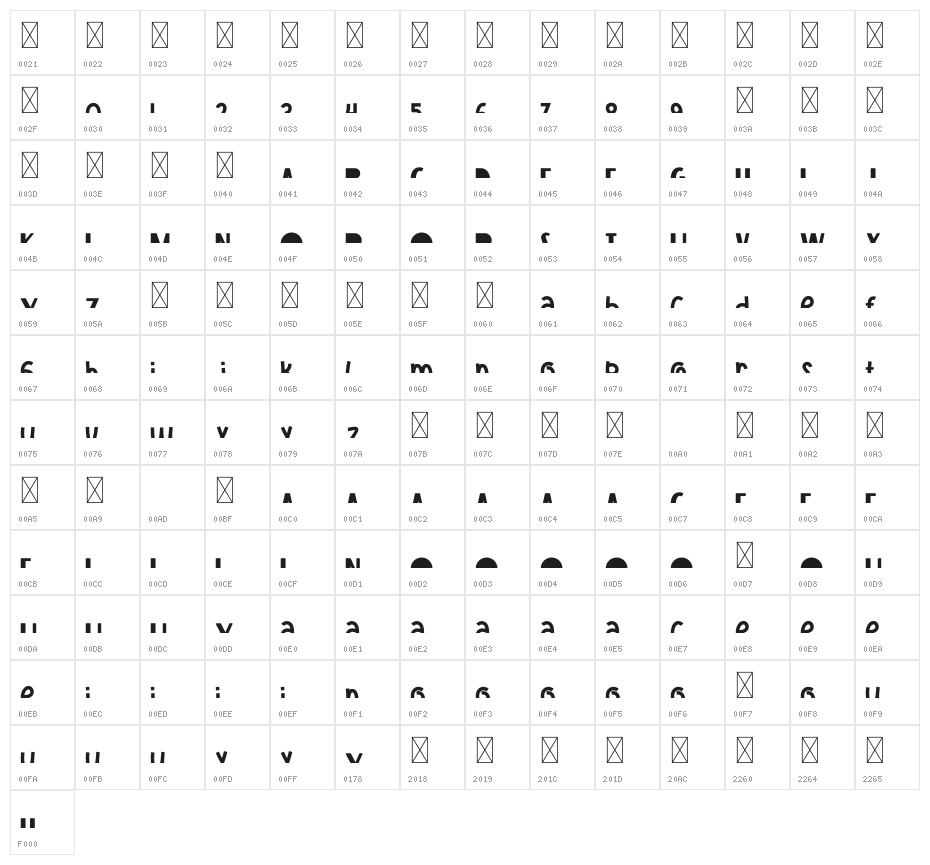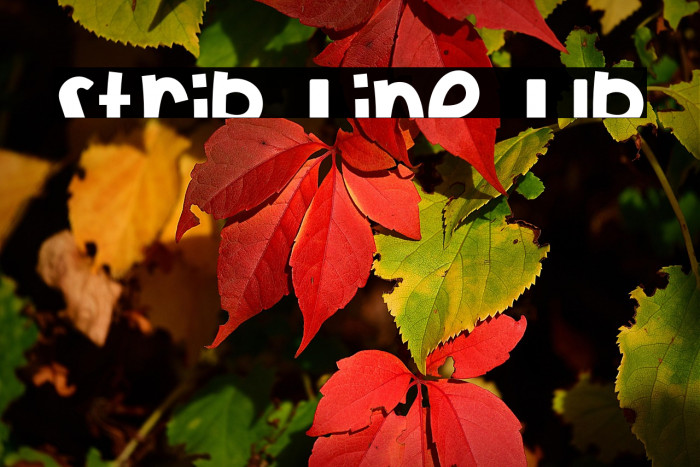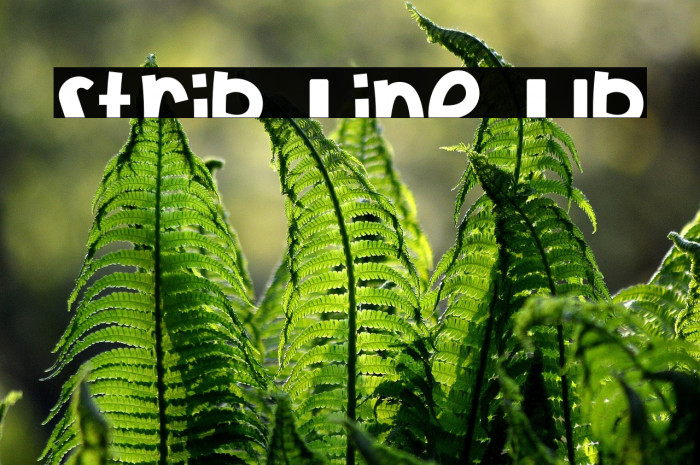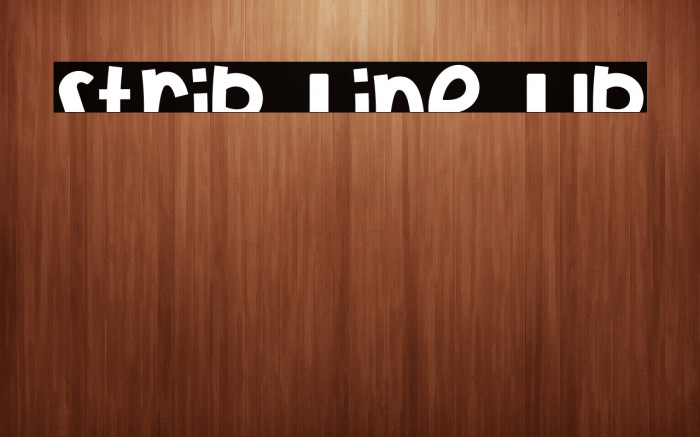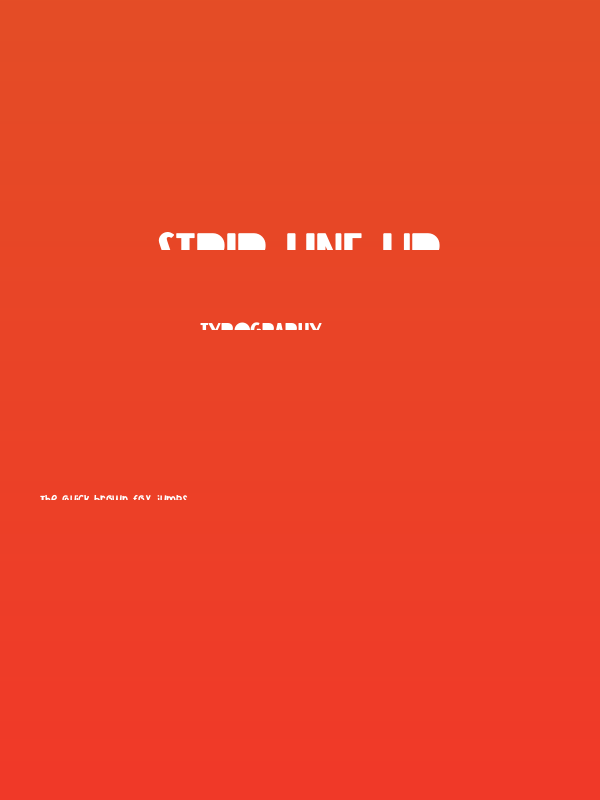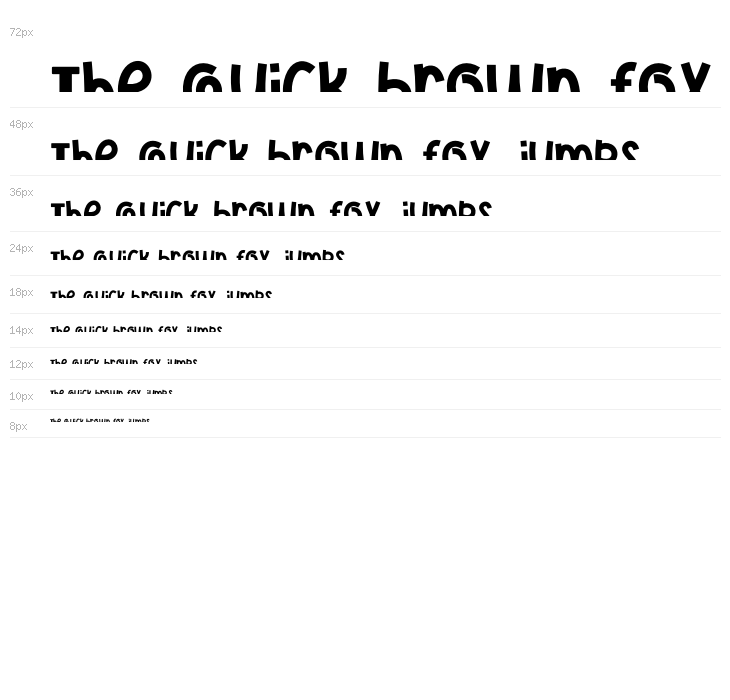
Strip Line Up Font
Strip Line Up Description
This font features a bold and geometric design with a distinctively modern and futuristic aesthetic. The characters are constructed with thick, solid lines and sharp angles, giving them a strong presence. The uppercase letters have a uniform height, while the lowercase letters maintain a consistent style with slight variations in curvature and line thickness. The numbers are similarly bold and geometric, ensuring readability and visual impact. The font lacks traditional serifs, opting instead for a clean, sans-serif look that emphasizes its contemporary style. The overall appearance is striking and suitable for projects that require a bold statement.